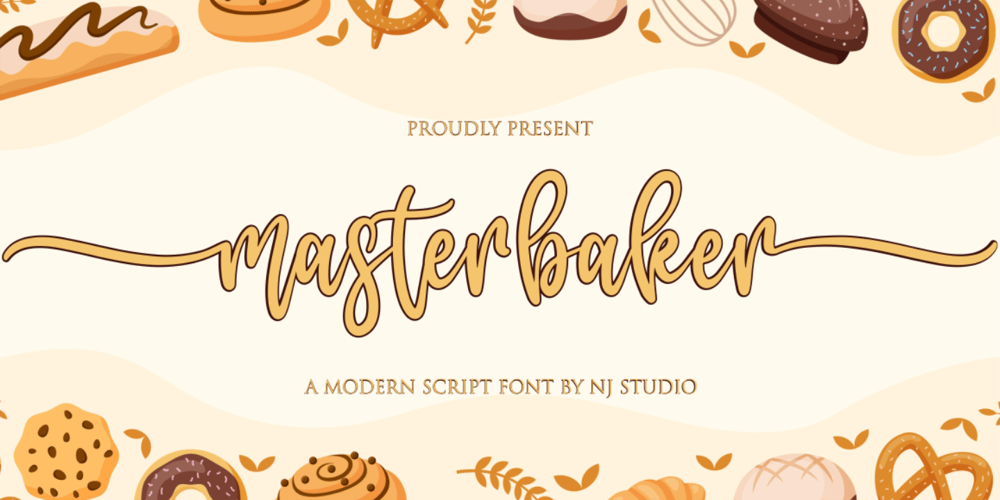
Masterbaker Font Family was designed by Siti Nurjanah and published by NJ Studio. Masterbaker contains 1 styles and family package options. Hi…Thank for your visit :)Masterbaker a modern script font is a unique script font. It features bread-themed characters that will take your projects to the next level!This font is PUA code which means you can easily access all the glyphs and swashes that are full of unique! It also features many special features including glyphs and alternate ligatures. font designs that are made for various vector designs, printing such as digital wedding blogs, online shops, social media, while printing can be used in the field of product clothing, accessories, bags, pins, logos, business cards, watermarks and many others …so it can make your product look cute and attractive, and also Multilingual support!!!Happy design …